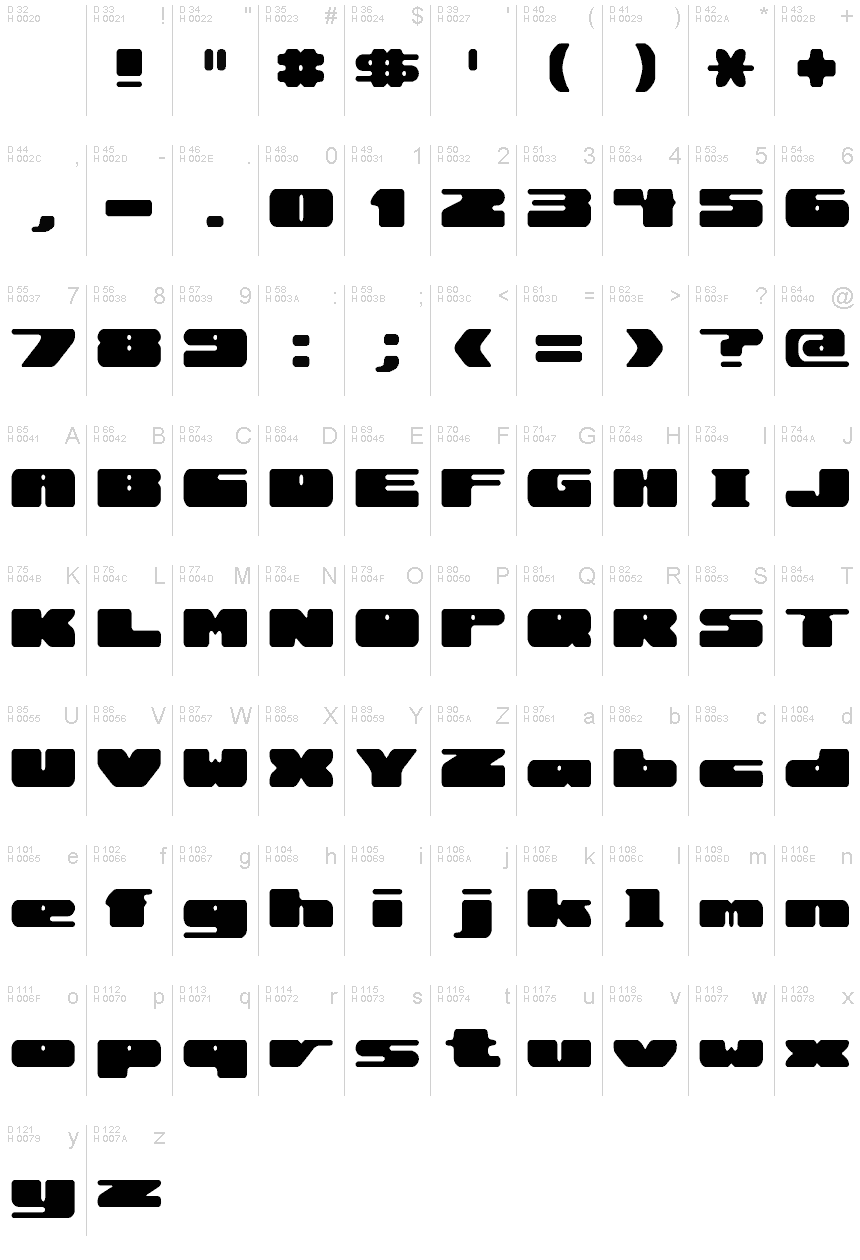
Rotund BRK
Rotund BRK, from the Rotund family and crafted by ÆNIGMA FONTS, is a display font that carries a commanding presence with its ultra-bold weight and ultra-expanded width. This techno-style typeface boasts a modern and clean design that exudes strength and stability.
Its bold lines and solid structure give it an aesthetic appeal that is both contemporary and functional, making it an excellent choice for high-impact headlines, posters, logos, and any project where clarity of message is essential. The unyielding geometry of Rotund BRK allows for strong visual coherence in branding or any creative endeavor seeking to make a bold statement.
With its unique balance of technological flair and robust construction, Rotund BRK stands out as an ideal font for designers looking to inject their work with a sense of futuristic professionalism. Whether used in digital media or print, this typeface will undoubtedly capture attention and convey confidence.
Its bold lines and solid structure give it an aesthetic appeal that is both contemporary and functional, making it an excellent choice for high-impact headlines, posters, logos, and any project where clarity of message is essential. The unyielding geometry of Rotund BRK allows for strong visual coherence in branding or any creative endeavor seeking to make a bold statement.
With its unique balance of technological flair and robust construction, Rotund BRK stands out as an ideal font for designers looking to inject their work with a sense of futuristic professionalism. Whether used in digital media or print, this typeface will undoubtedly capture attention and convey confidence.